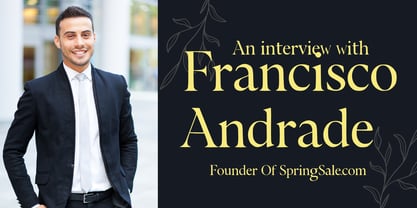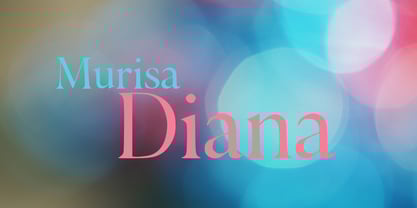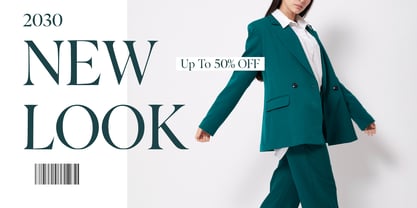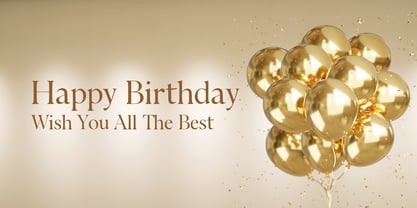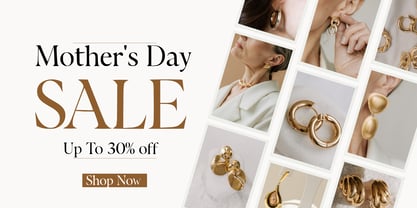
Murisa Diana
The Murisa Diana Font Family was designed by Lili Sadili and published by Murisa Studio. Murisa Diana contains 1 styles. More about this family
Hello, good morning. It's a pleasure to be here. Today we'd like to introduce our newest font: the Murisa Diana font. This font is very elegant in form. Although it looks like other serif fonts, we believe it has its own uniqueness. This font is great when combined with banner designs, brochures, or posters for beauty products, sales, and so on. Get the Murisa Diana font here.